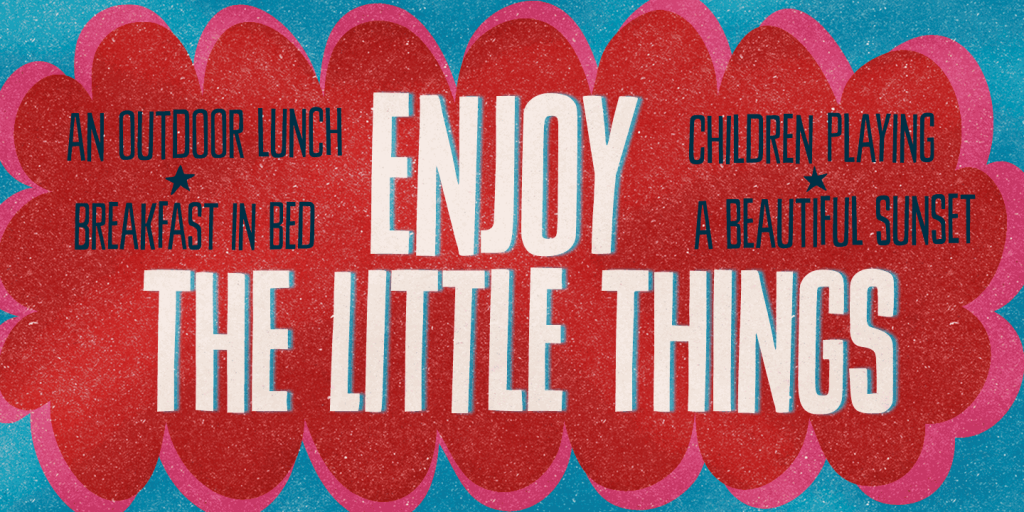
Sheldon
Everyone from this poster world is well aware of graphic artist Marian Stachurski for its amazing posters which has trilled a lot. This polish has inspired some beautiful chart busters’ font and one of them is Sheldon which is designed by Ricardo Marcin, Erica Jung and published by PintassilgoPrints. This super stylist uppercase font provides a very uniform look when used also in the most uneven fashions.
The best thing about this poster perfect font is it has a sub category of pictures which adds a charm to the posters where ever used. It has 2 others too like Sheldon Feather and Sheldon Fly which accommodates many typographic in it.